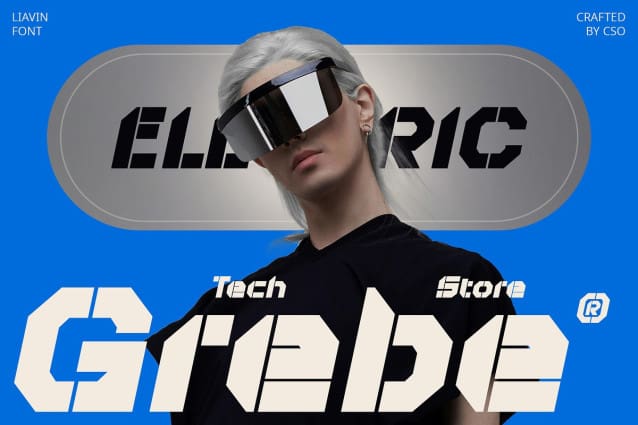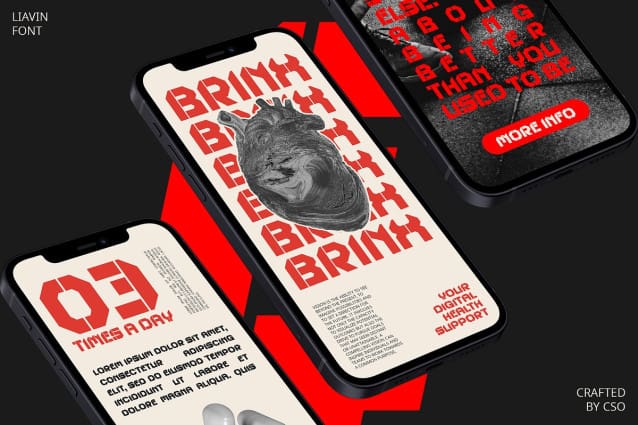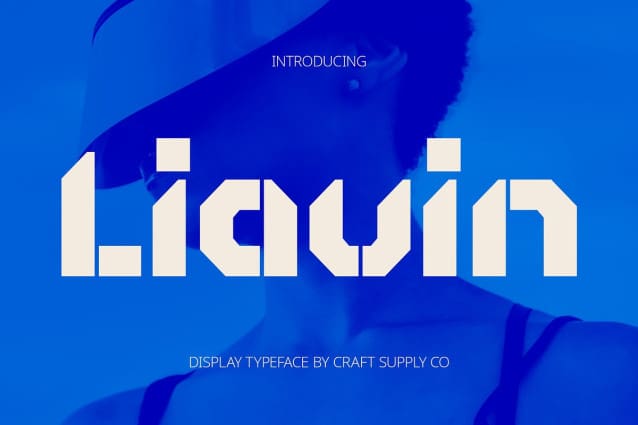
Liavin Futuristic Font
Liavin Futuristic Font is a futuristic font, featuring a modern display style. This font is perfect for designs aiming to convey an innovative, sophisticated, and modern impression, adding a sleek touch to your projects.
Ideal for Cutting-Edge Designs Perfect for headlines, banners, and other display purposes, Liavin Futuristic ensures your message is both seen and remembered. Its futuristic concept makes it a perfect choice for designs seeking to create a visually appealing and modern impression.
Versatile and Stylish Despite its futuristic appearance, Liavin remains versatile and stylish. Its display font format makes it suitable for a wide range of projects, from branding to digital designs, where a font that exudes innovation and modernity is essential for making a statement.
Perfect for Adding a Modern Touch Liavin is ideal for projects requiring a font with a modern touch. Whether you’re designing a poster, logo, or website, this font will undoubtedly add a distinct and memorable element to your designs.